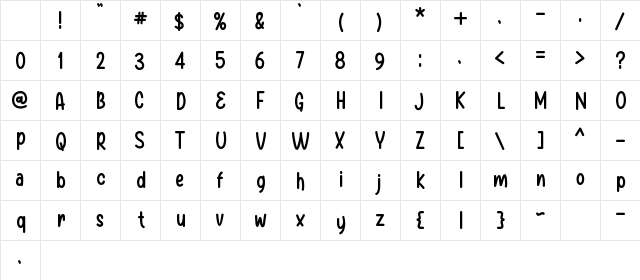
Complete Baby Balloon Regular glyph index. Displaying only characters natively supported by Baby Balloon Regular font.
Baby Balloon is a composed and adaptable typeface that performs quietly and consistently across a wide range of design contexts.